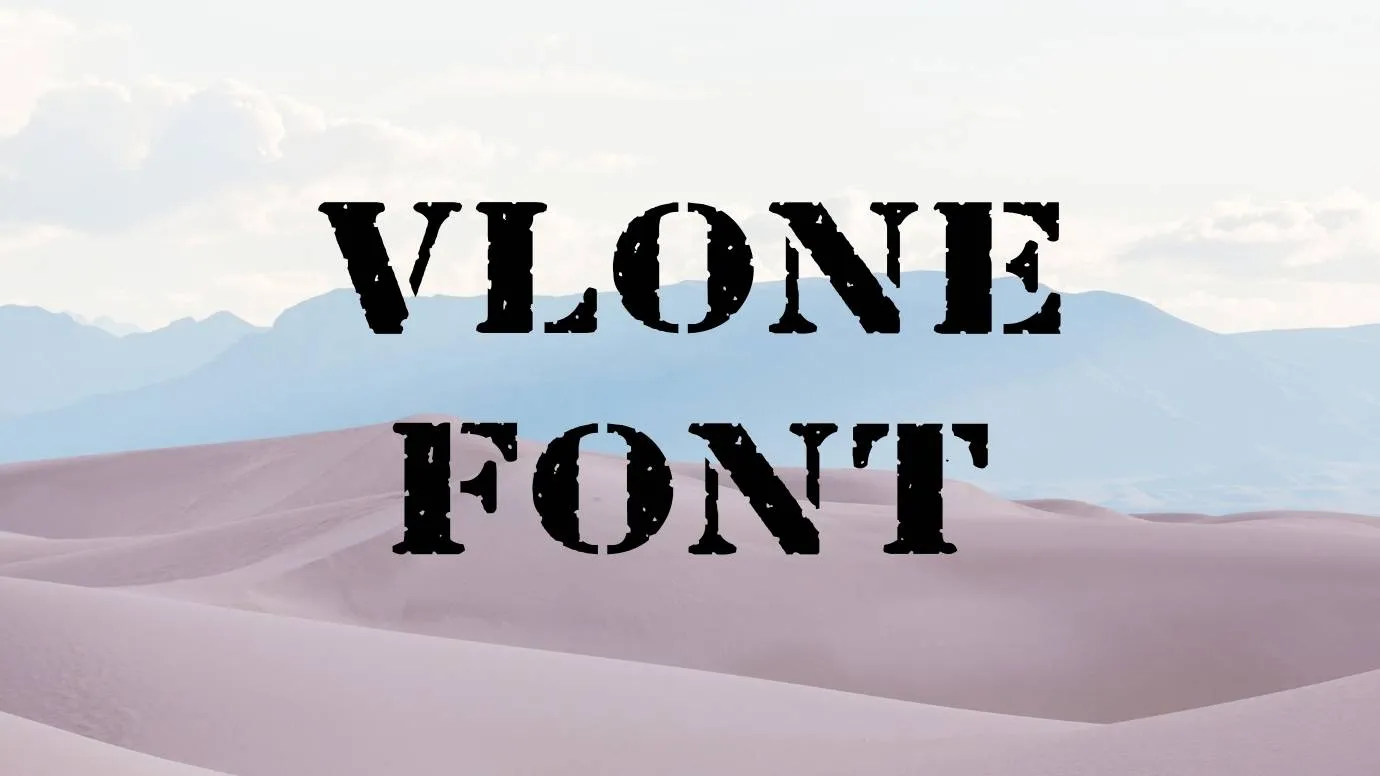
Font Introduction
Vlone Font
Vlone Font Family is a fancy typeface that was designed and posted for the first time by a famous and notable designer Mad Mutt. This typeface is created for the logo of a street fashion brand. It is mostly used on the Vloon product. This font is famous among millions of people because of Vlone fashion designing company. This fancy font is a wonderful font that has a beautiful shape. This typeface can be used anywhere such as website, in any record, or anything else you need.
DesignerMad Mutt
TypeFancy
Where can we use Vlone Font?
You can use this typeface for the soft and impressive look of your designs. By using this typeface, you can easily make various attractive and classic designs. You can use this font in all design fields. It is mostly suitable for Vloon (fashion brand) products.
What type of font is Vlone Font?
Vlone Font is a fancy typeface that you can use for attractive designs on your text. This typeface was designed by Mad Mutt.
What is the closest typeface to Vlone Font?
Army Font is the closest font to this typeface but many other fonts are similar to this typeface in the font family such as Money Font, Sports Jersey Font, Badaboom Font, etc.